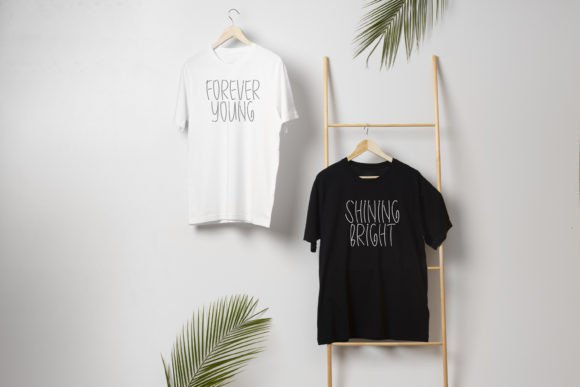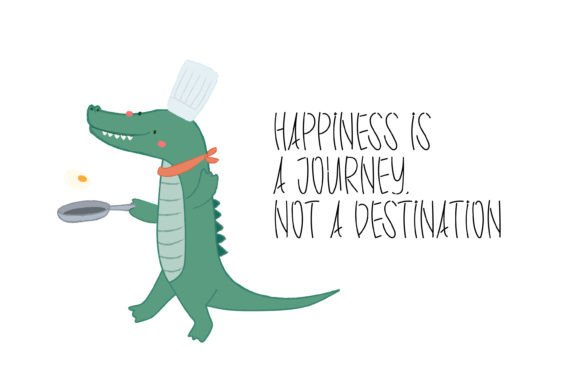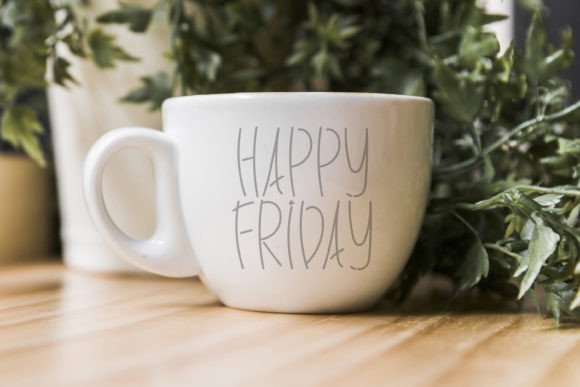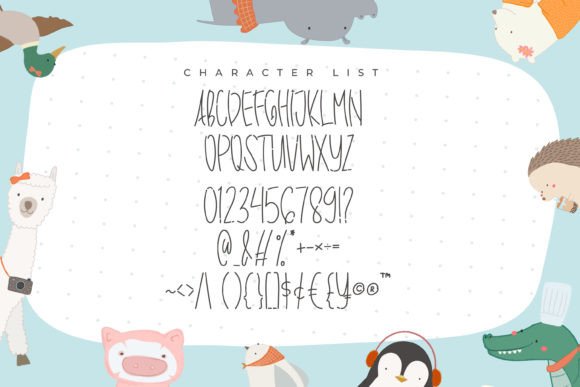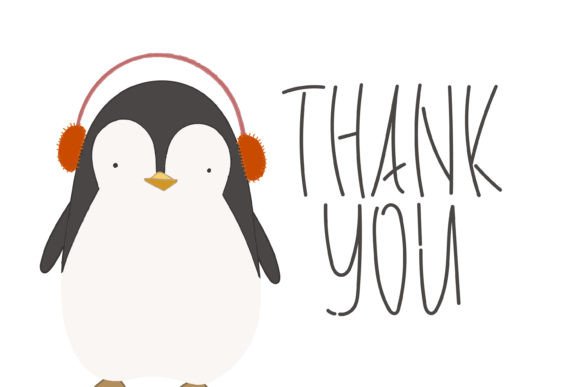
Introducing Happy Monday Font: The Perfect Choice for Playful and Creative Projects
Are you tired of using the same old fonts for your children’s activities or school projects? Look no further! Happy Monday Font is here to add a touch of playfulness and cuteness to your designs. This trendy and authentic display font is perfect for crafters, designers, and educators who want to make their projects stand out.
What is Happy Monday Font?
Happy Monday Font is a unique and charming display font that is designed to bring a smile to your face. Its playful and cute design makes it an ideal choice for children’s activities, school projects, and any other creative endeavor that requires a fun and youthful touch.
Key Features of Happy Monday Font
- Playful and Cute Design: Happy Monday Font features a playful and cute design that is sure to capture the attention of your audience.
- Trendy and Authentic: This font embodies trendiness and authenticity, making it perfect for modern designs.
- Display Font: Happy Monday Font is a display font, which means it’s designed to make a statement and be noticed.
- Versatile: This font can be used for a wide range of projects, from children’s activities to school projects, and even personal crafts.
Why Choose Happy Monday Font?
There are many reasons why Happy Monday Font stands out from the rest. Here are a few:
- Unique Design: Happy Monday Font has a unique design that will set your projects apart from others.
- Easy to Read: Despite its playful design, Happy Monday Font is easy to read, making it perfect for projects that require a lot of text.
- Fun and Youthful: This font is perfect for projects that require a fun and youthful touch, such as children’s activities and school projects.
How to Use Happy Monday Font
Using Happy Monday Font is easy! Here are a few tips:
- Pair it with Other Fonts: Happy Monday Font pairs well with other fonts, so feel free to experiment with different combinations.
- Use it for Headings: This font is perfect for headings and titles, so use it to make a statement.
- Add it to Your Crafts: Happy Monday Font is perfect for crafters, so add it to your projects, such as handmade cards and gift tags.
Happy Monday Font is perfect for designers and crafters who want to add a touch of playfulness to their projects. Here are a few ways designers and crafters can use this font:
- Children’s Activity Sheets: Happy Monday Font is perfect for children’s activity sheets, such as coloring pages and worksheets.
- School Projects: This font is great for school projects, such as posters, presentations, and reports.
- Handmade Crafts: Happy Monday Font can be used for handmade crafts, such as card making, scrapbooking, and gift tagging.
In conclusion, Happy Monday Font is a playful and cute display font that is perfect for children’s activities, school projects, and handmade crafts. Its trendy and authentic design makes it a great choice for designers and crafters who want to add a touch of fun and youthfulness to their projects. So why not give Happy Monday Font a try and see how it can elevate your designs?
Whether you’re a designer, crafter, or educator, Happy Monday Font is sure to bring a smile to your face and a touch of playfulness to your projects. So go ahead, get creative, and have fun with Happy Monday Font!